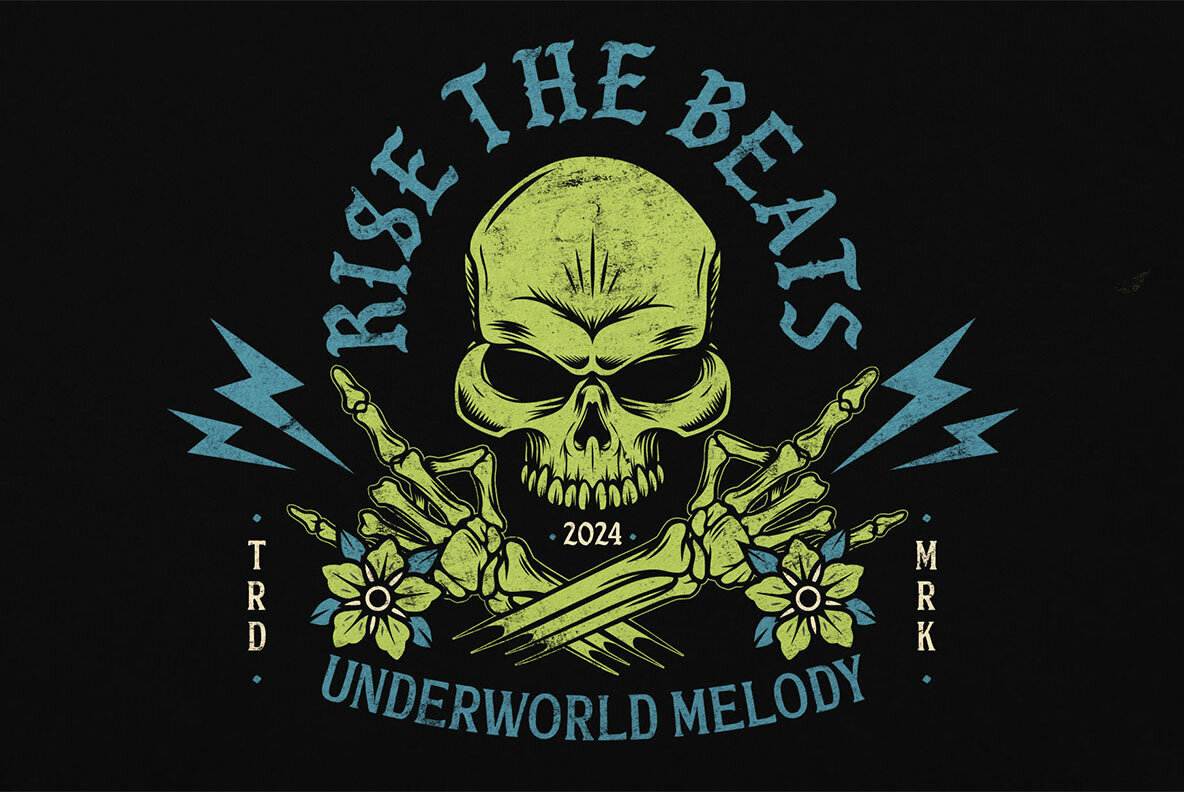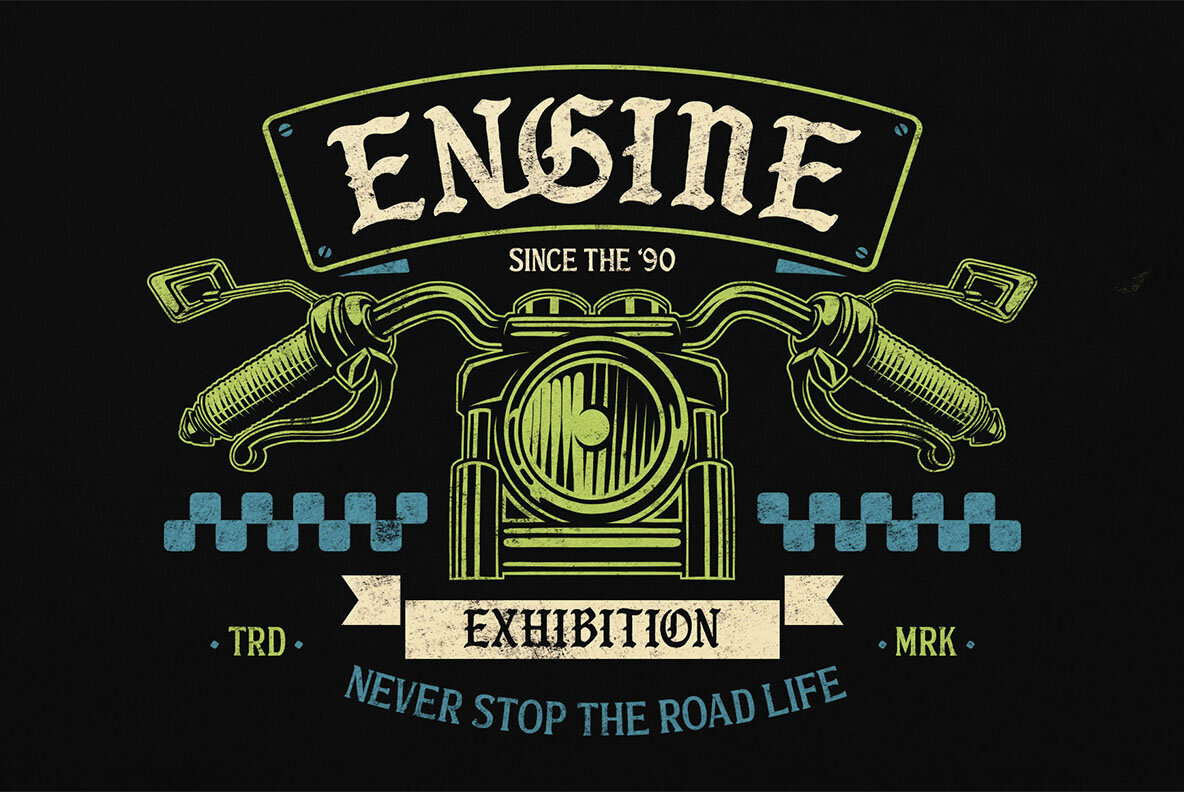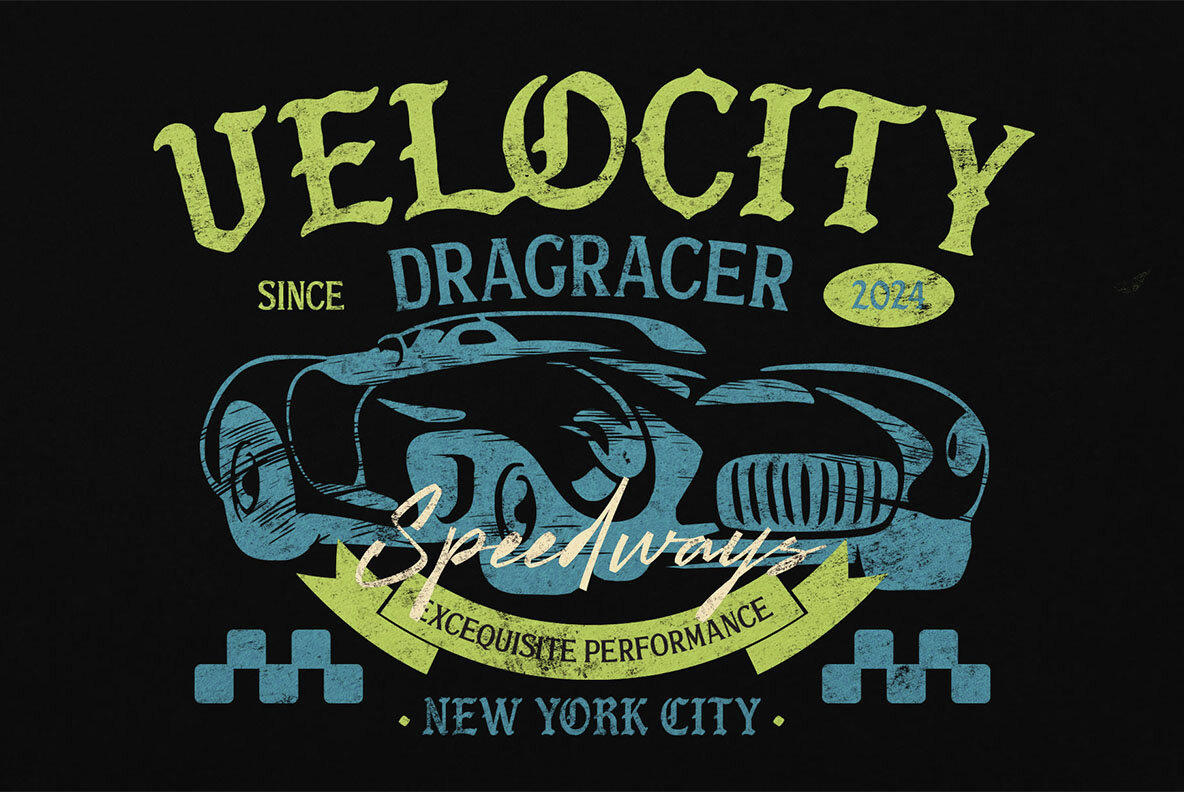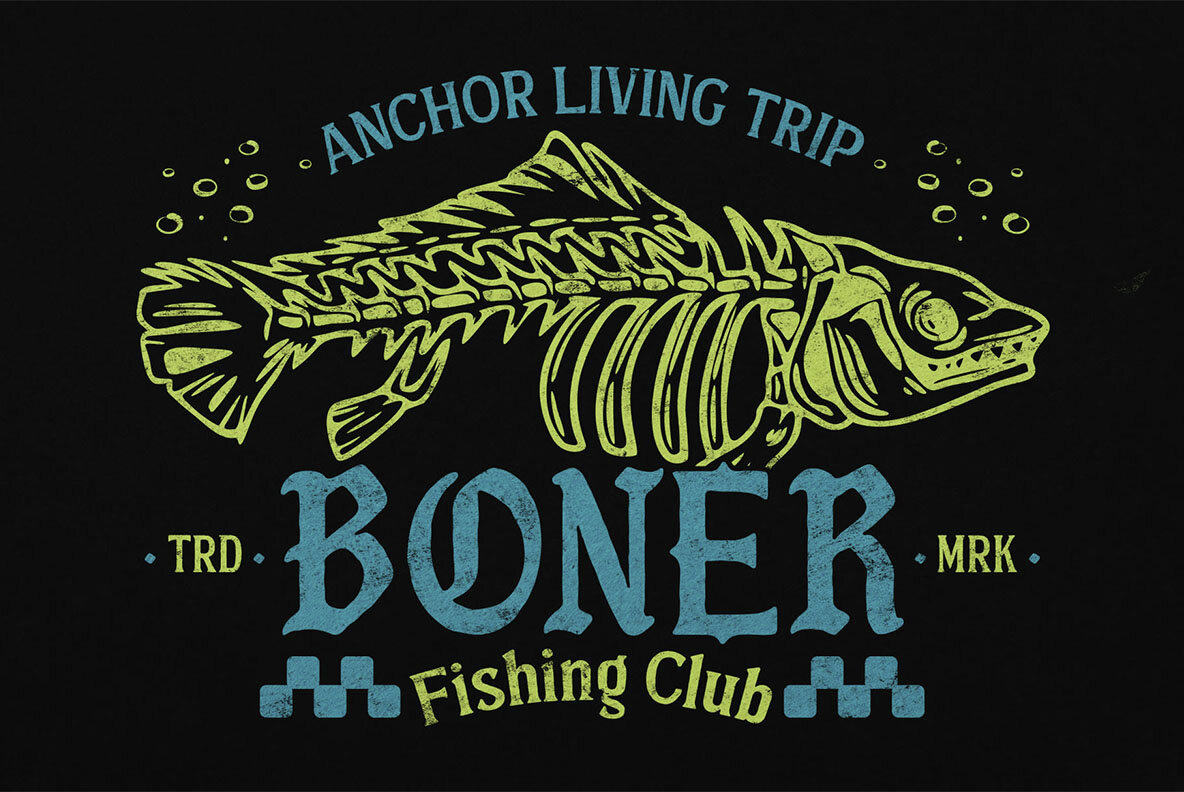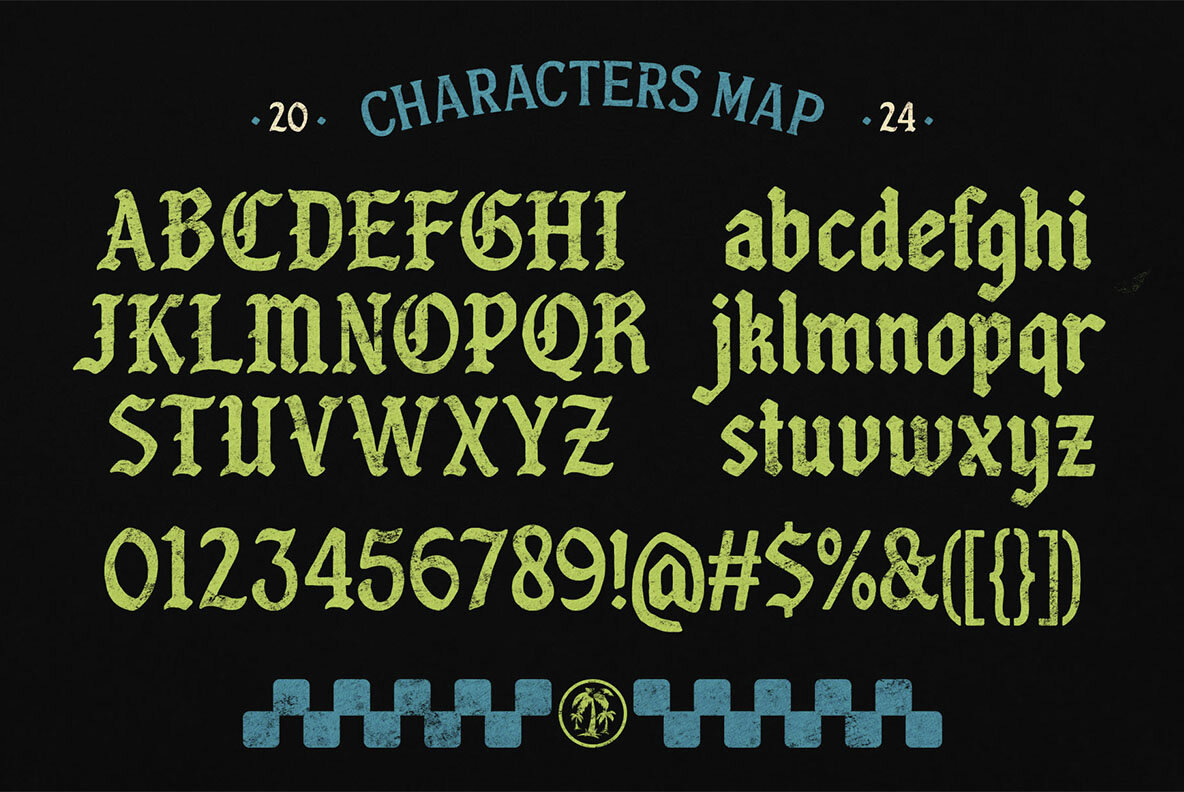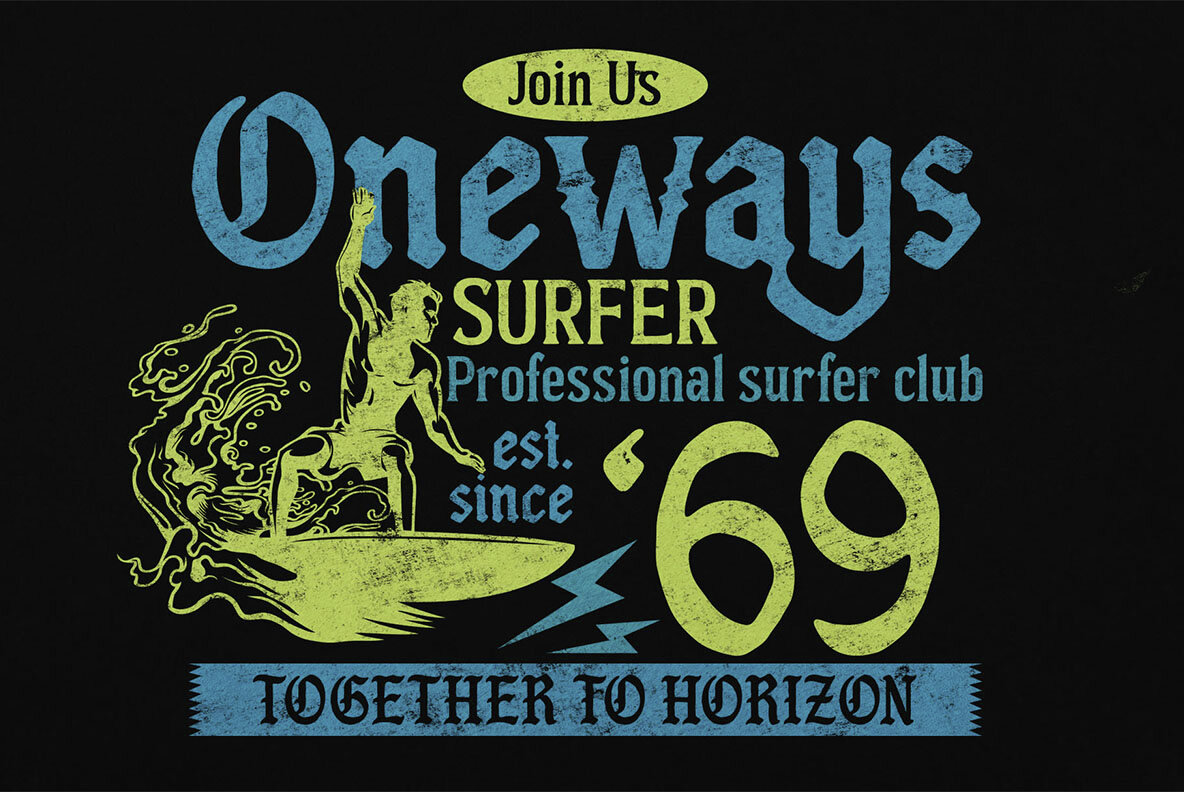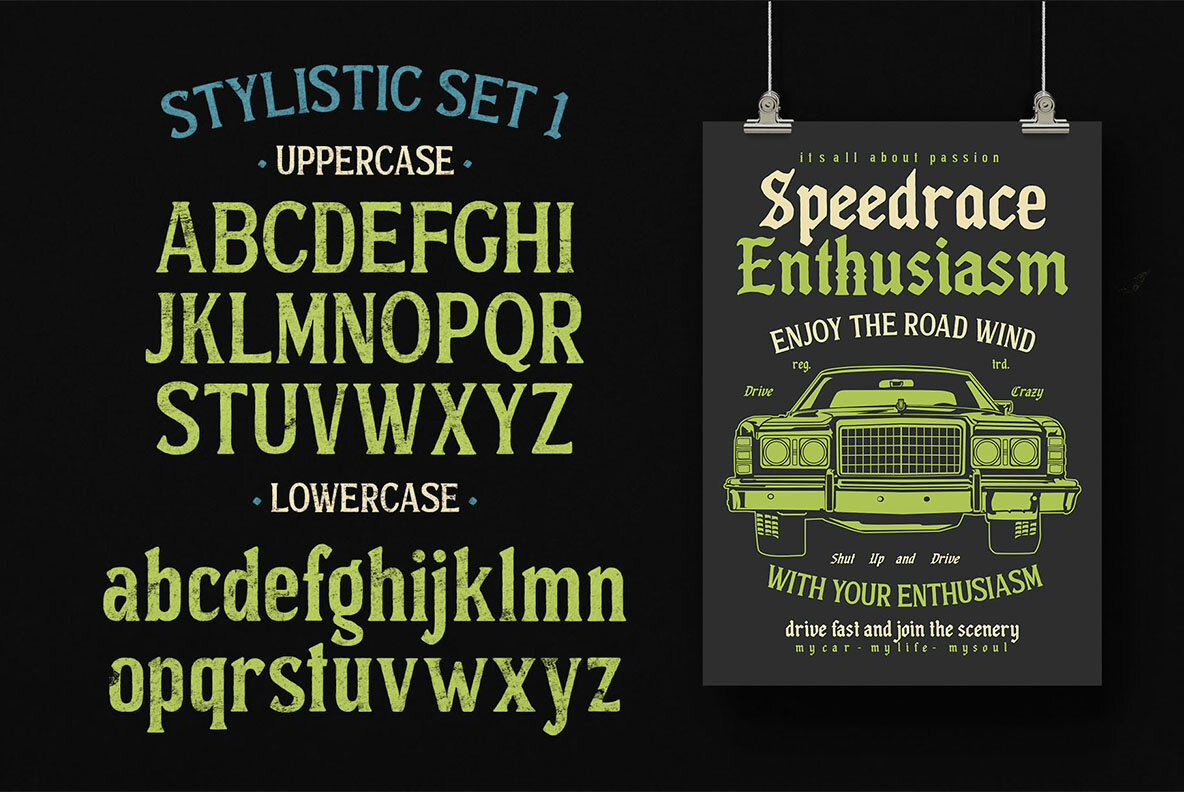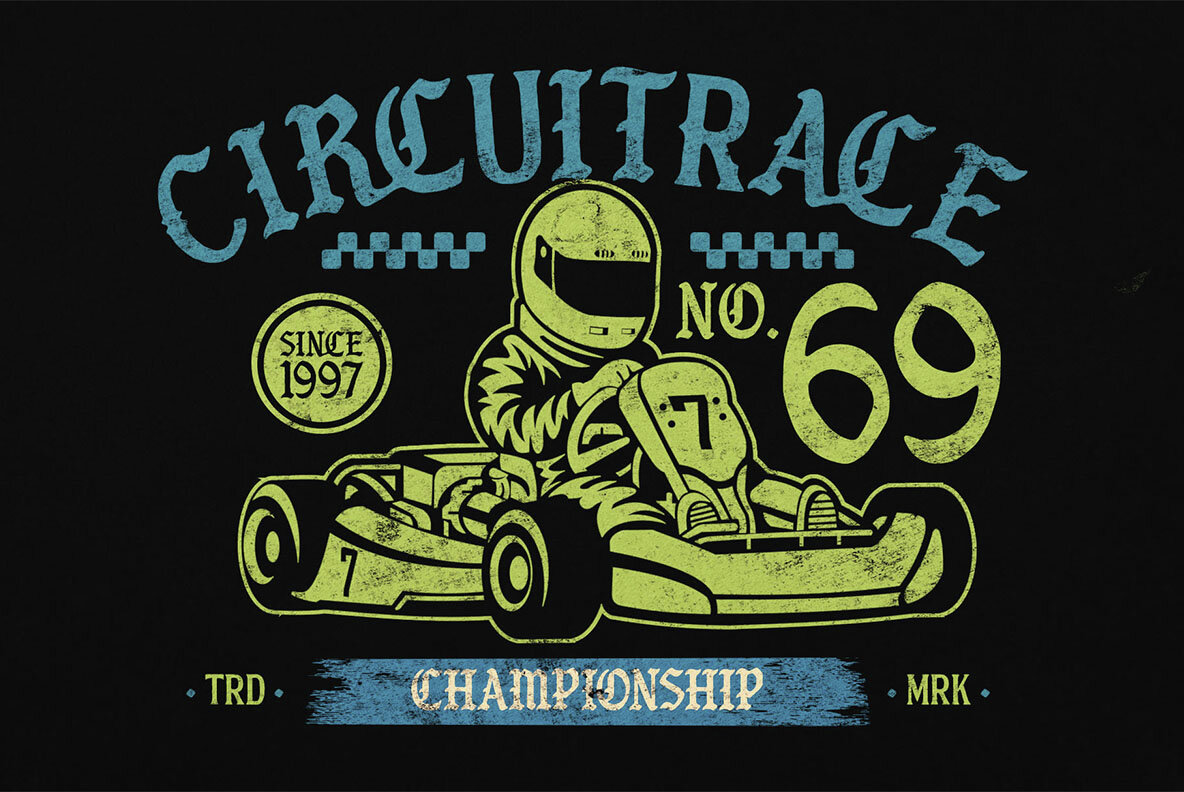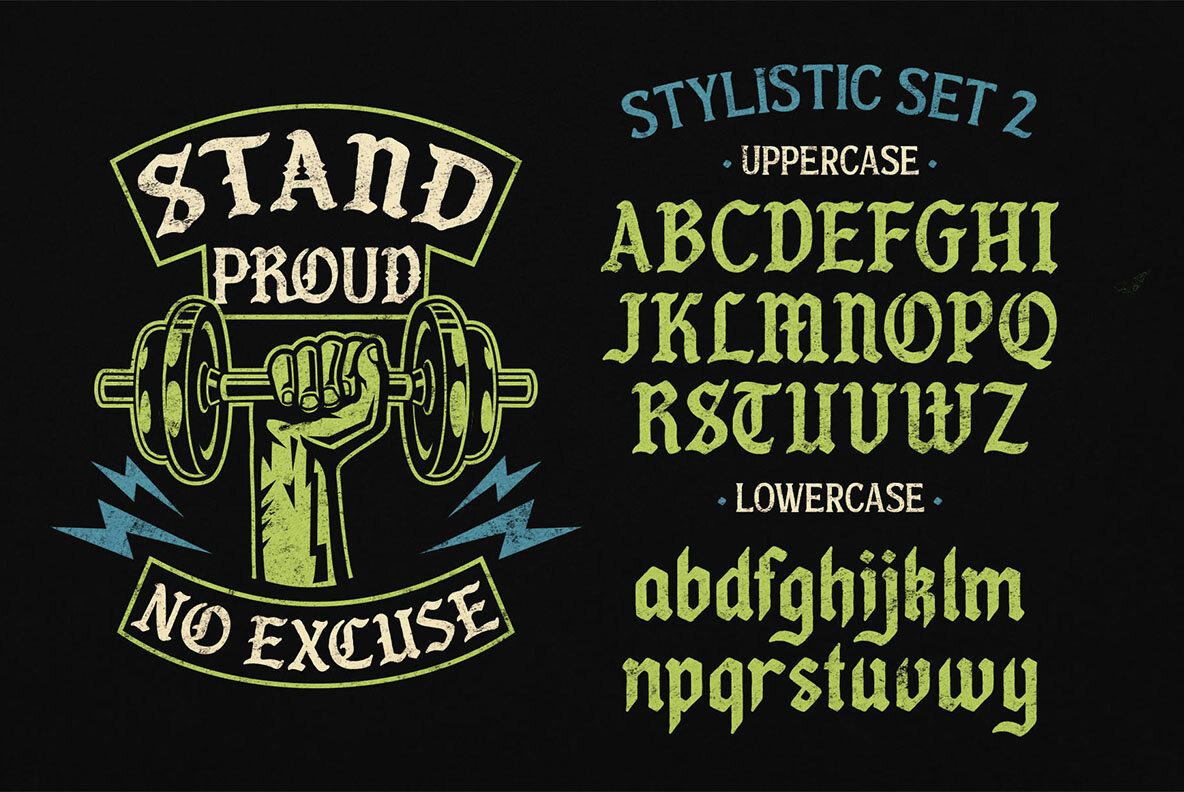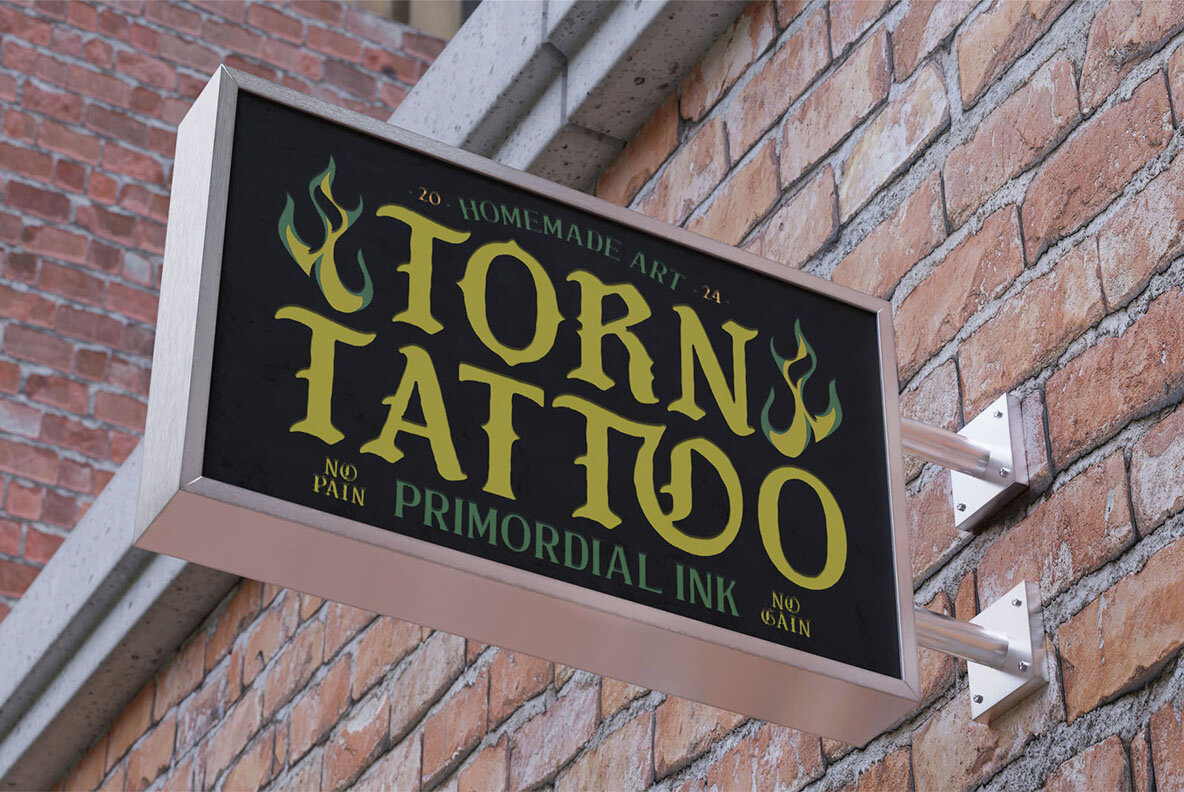
Hold Money Font
Hold Money Regular
Hold Money Blackletter Typeface is a bold, vintage-inspired font that commands attention. Combining the classic elegance of Gothic typefaces with a rugged, distressed look, it offers a unique blend of traditional calligraphy and contemporary grit. This makes it ideal for branding, posters, packaging, and apparel, infusing projects with a rebellious, old-world charm. Its sharp, intricate strokes and sturdy design ensure that any headline, logo, or design element stands out with striking clarity.
Perfect for both print and digital mediums, Hold Money Blackletter Typeface provides a distinctive touch of rough sophistication. Its bold presence adds depth and character, making it suitable for designs that seek to mix vintage aesthetics with modern flair. Whether you're aiming for an authentic, historical vibe or a bold, edgy look, this typeface is a versatile choice that enhances the visual impact of your work.